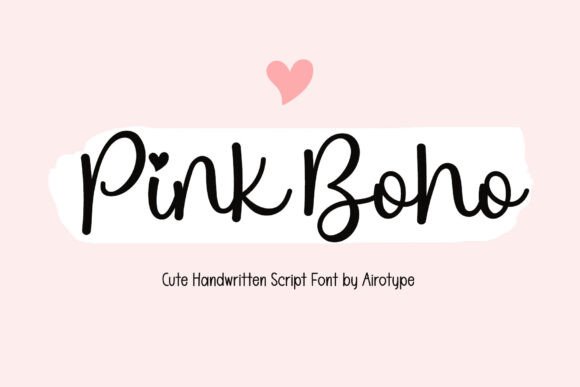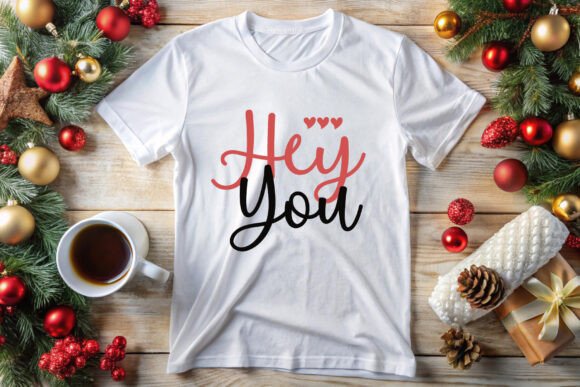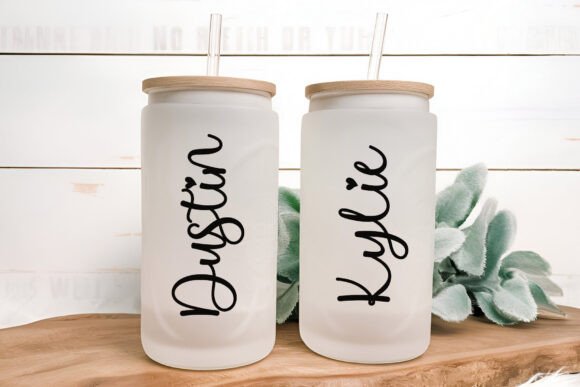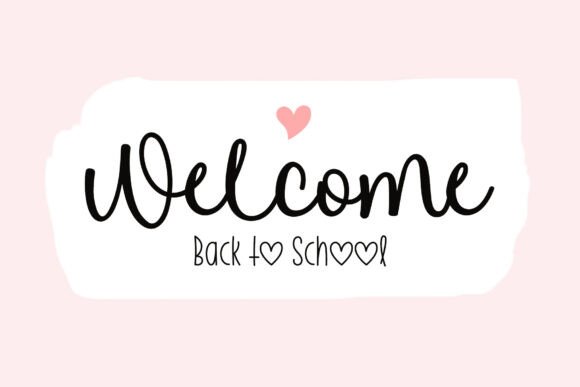
Pink Boho Font
About the Pink Boho Font
Meet Pink Boho Font, a stunning font that brings a touch of elegance and professionalism to any design. Pink Boho is simple and cute handwritten script font with lovely vibes. This is cursive, bouncy, and fun. This font is so pretty for design that needs simple handwritten touch, such as valentines day design, wedding design, invitation, birthday, t-shirt design, crafting, sticker, sublimation, and many more.
Pink Boho’s playful energy makes it ideal for projects requiring a touch of whimsy, such as branding for boutiques, children’s products, or wedding stationery. It excels in headlines, short text blocks, and logos, adding a charming, handcrafted feel. However, its cursive nature and varying stroke weights make it less suitable for body text or UI elements where legibility is paramount. Avoid using it for large amounts of continuous text.
Pairing Pink Boho with a clean sans-serif like Montserrat or a geometric sans-serif like Futura adds visual contrast and enhances readability. For a more sophisticated look, consider pairing it with a delicate serif font like Playfair Display. These pairings balance Pink Boho’s informal charm with a touch of professionalism or modern sleekness, depending on the desired aesthetic.
Its overall personality is best described as friendly and approachable, lending itself to brands that prioritize warmth and approachability.